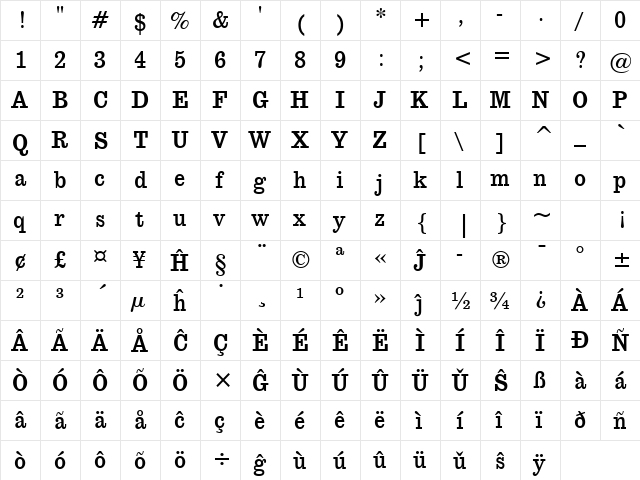
Egyptian710 BT Eo Regular
Design Context for Egyptian710 BT Eo Typeface
Egyptian710 BT Eo combines the readability of serif typography with the visual weight of a slab construction, resulting in a typeface that feels both authoritative and approachable.
Works well in editorial design, news publishing, impactful branding, and poster typography.
Pro Tip: Try Egyptian710 BT Eo set tight in headlines for a classic editorial feel. Its slab serifs create strong horizontal rhythm that anchors a page layout.